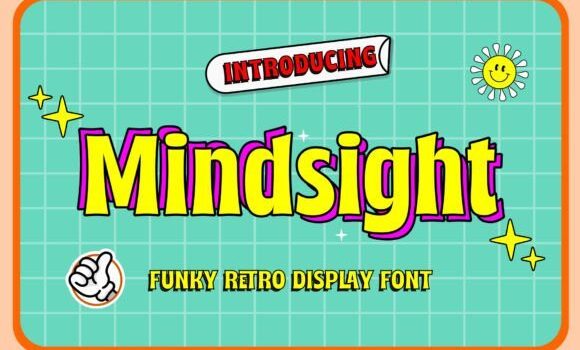
mindsight
Mindsight Font – Free Download Introduction to Mindsight Font Mindsight Funky Retro Display Font is a vibrant and energetic typeface that captures the essence of vintage aesthetics. 📸 Preview Gallery 5 images 📌 Product Name Mindsight Font 👤 Author getstudio